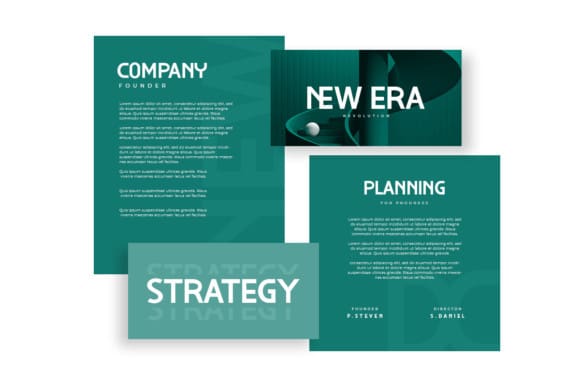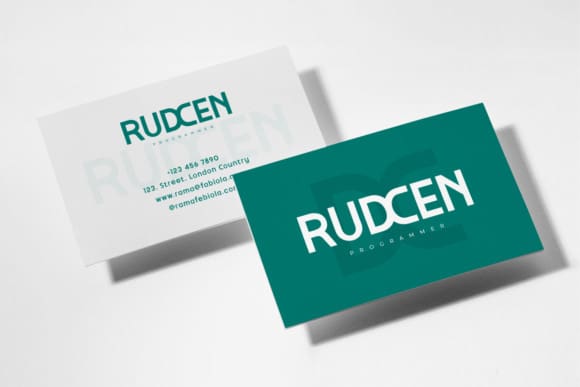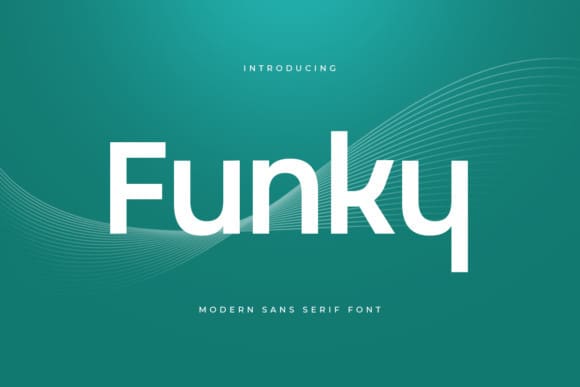
Funky Font
Funky Font is a sleek sans-serif font that epitomizes modern minimalism with a touch of refinement. Its clean lines and well-balanced letterforms create a sophisticated and versatile aesthetic. Ideal for projects demanding clarity and contemporary elegance, Funky adds a sleek, polished look to your designs.